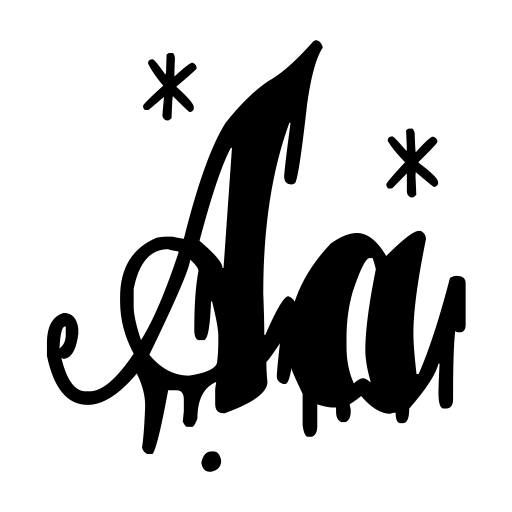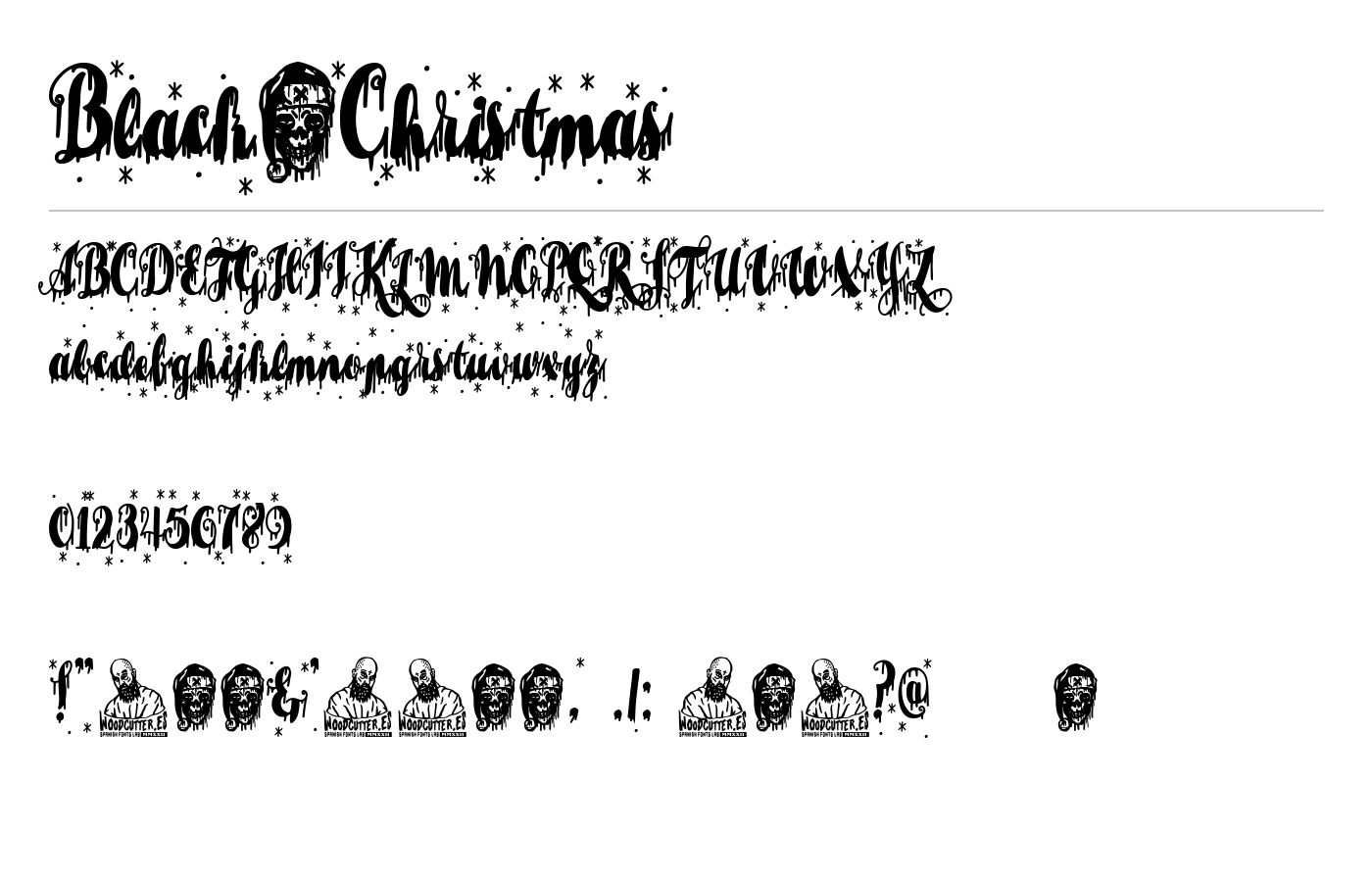
Black_Christmas is a bold, decorative script font with a dark, festive twist, featuring dripping, ink-like strokes and scattered star accents that give it a spooky yet playful holiday vibe. Its thick weight and intricate swirls make it stand out, best suited for eye-catching headlines, event posters, or themed packaging where a dramatic, gothic Christmas atmosphere is desired. This font works well for creative projects aiming to combine festive cheer with a mysterious, edgy personality.
Black_Christmas Font